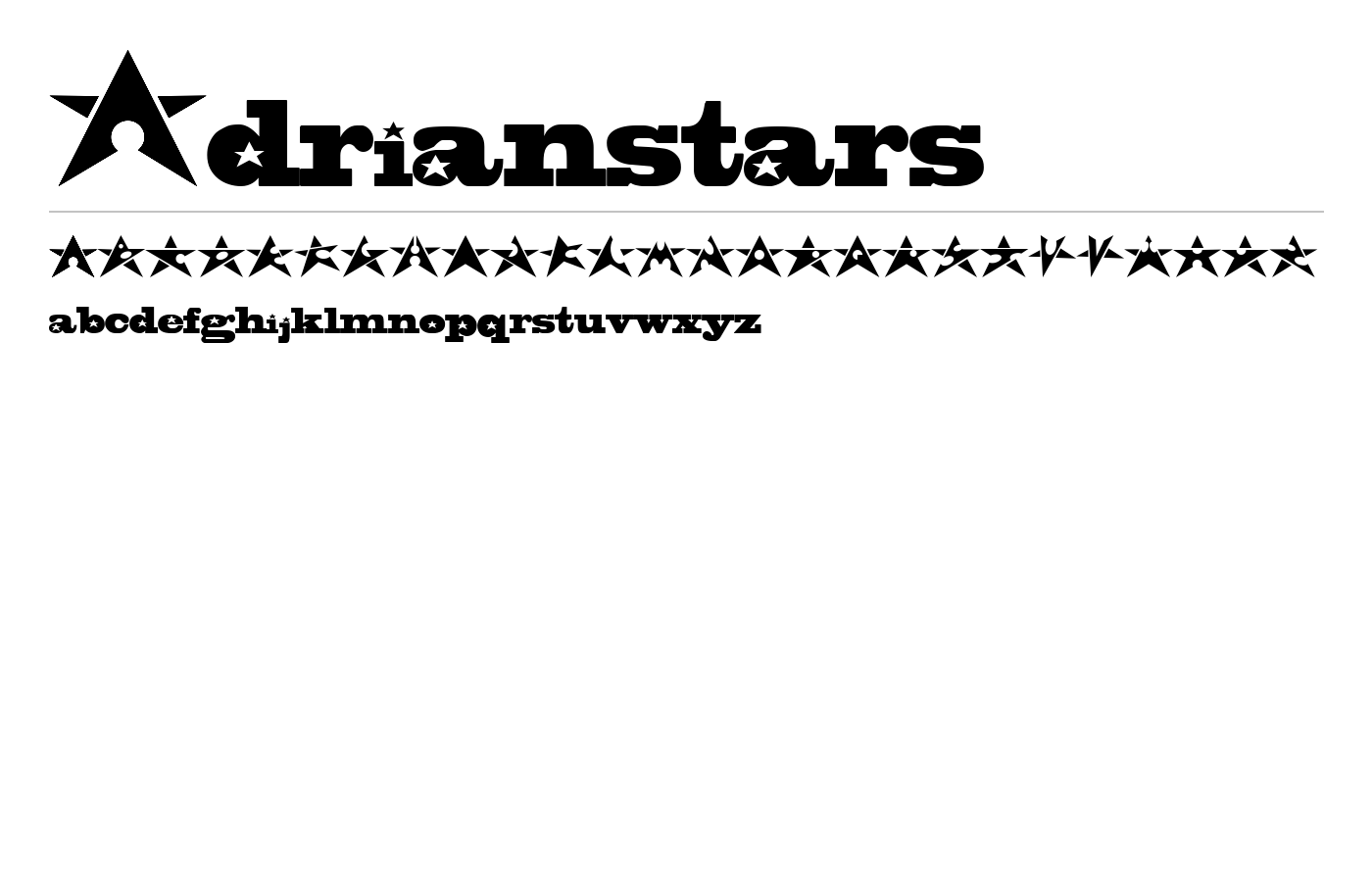
Adrianstars is a bold, decorative slab serif font with a playful personality, featuring strong, blocky letterforms accented by star-shaped cutouts that add a unique, whimsical touch. Its heavy weight and condensed width give it a commanding presence, making it ideal for eye-catching headlines, logos, and creative branding where a fun yet robust style is desired. This font works best for designs that want to convey energy and originality, particularly in entertainment, children’s media, or festive themes.
Adrianstars Font
About Adrianstars Font